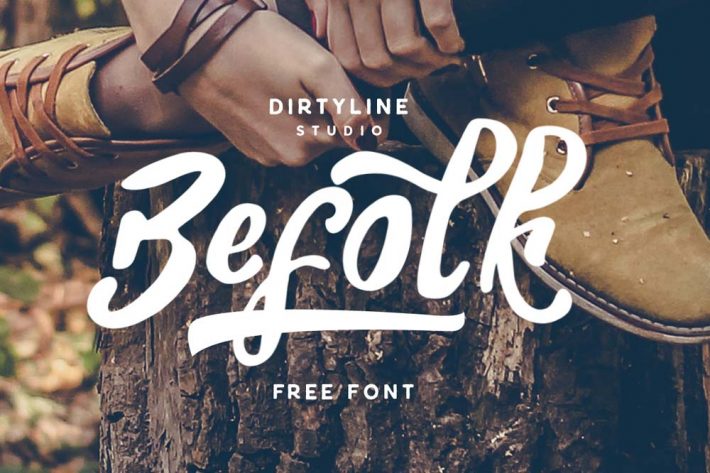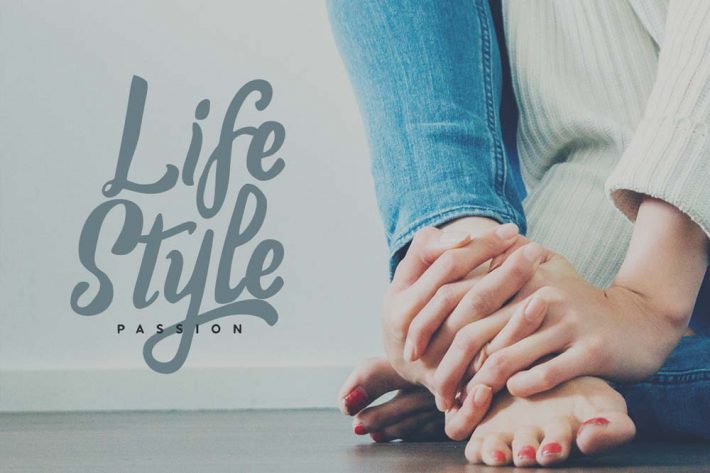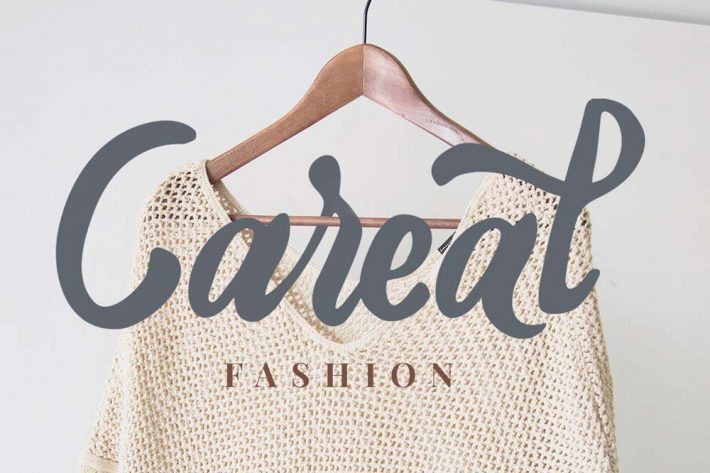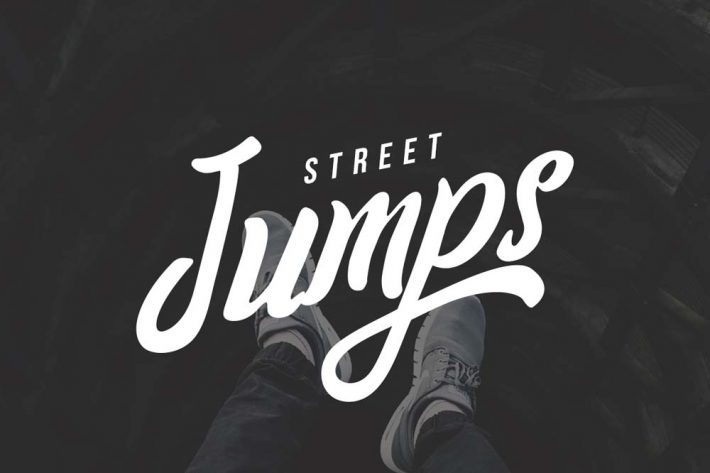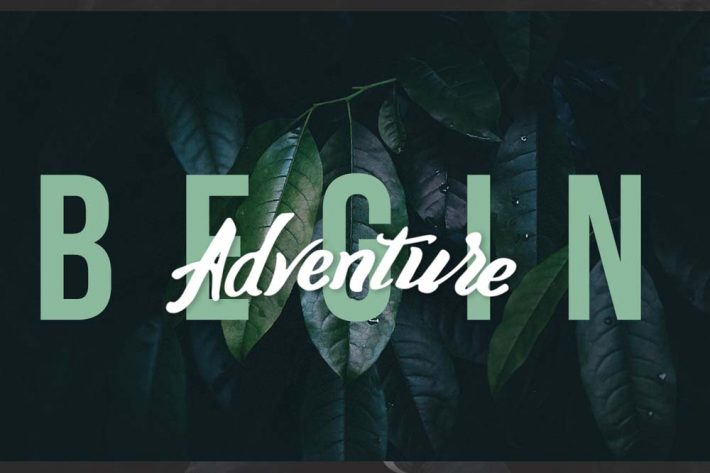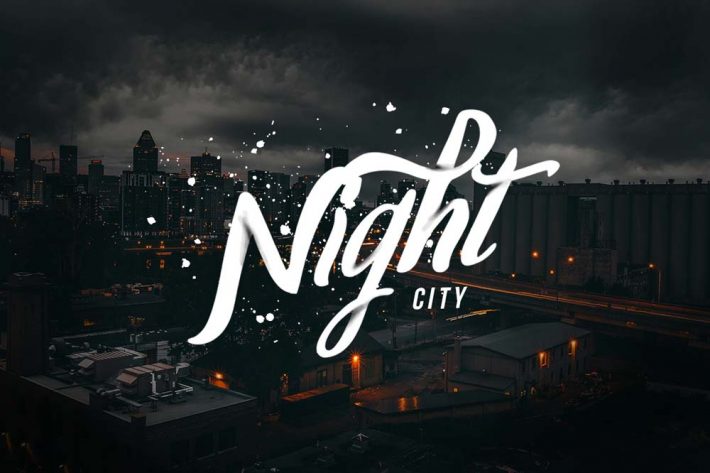
Befolk Script Font is a Sweet Bold Typeface with some Alternate. It can be used as heading, headlines, logo, insignia, packaging, badge, poster, t-shirt or any apparel and greeting card.
This is beautiful typeface Befolk Script Free Font with all characters you may have or want to have.